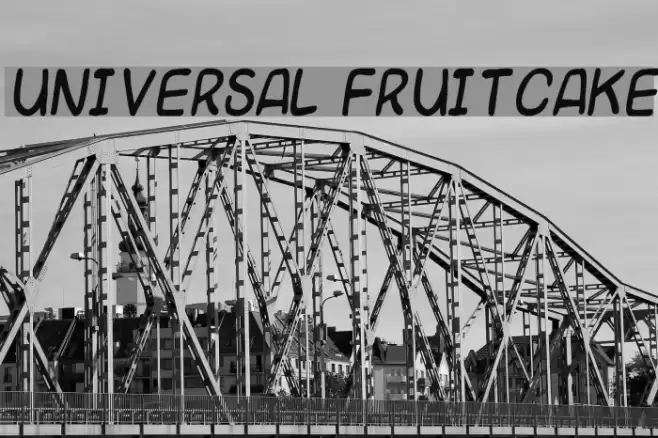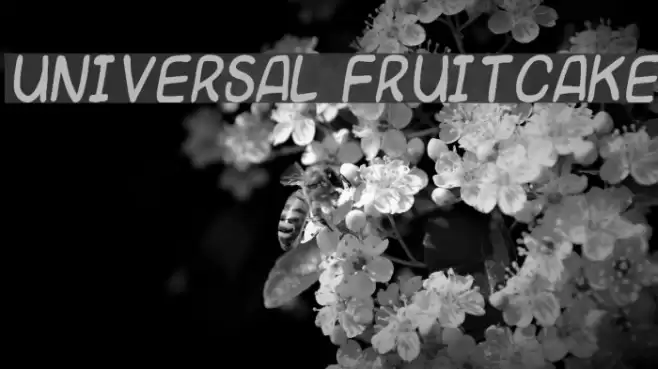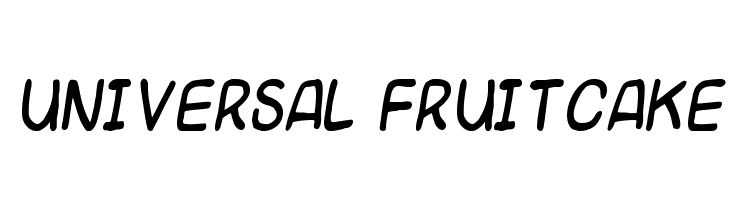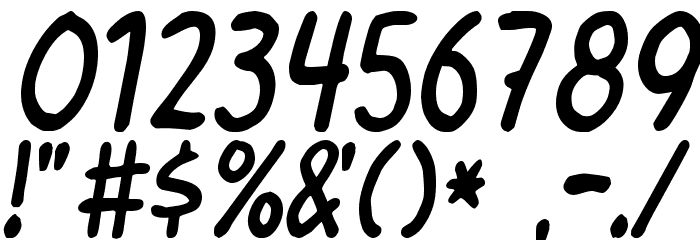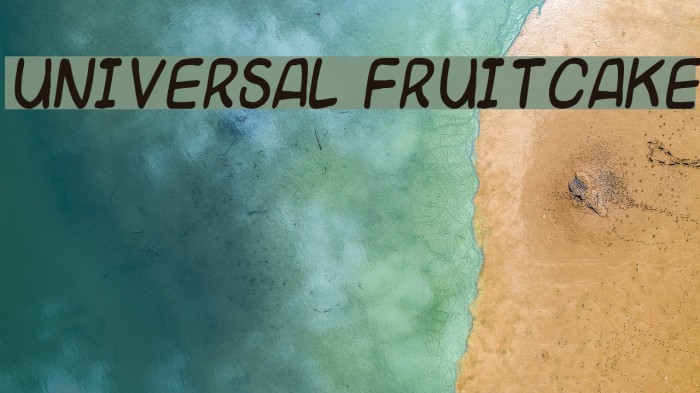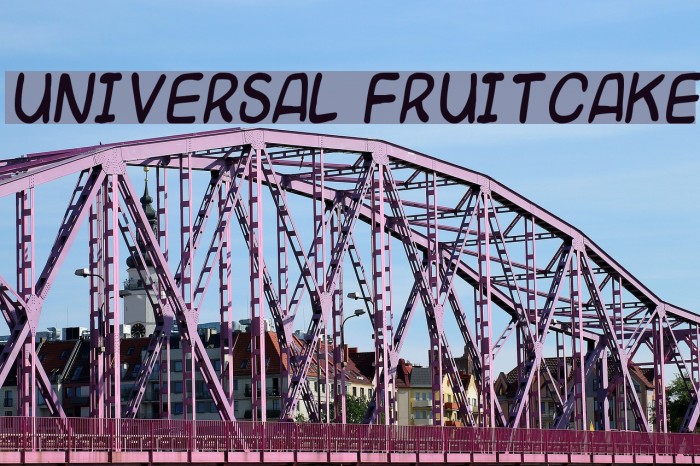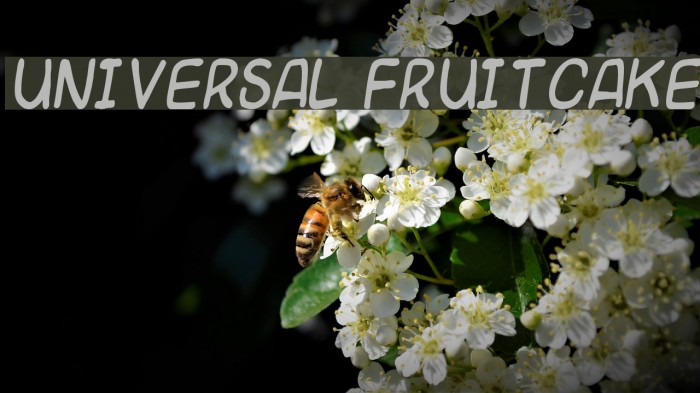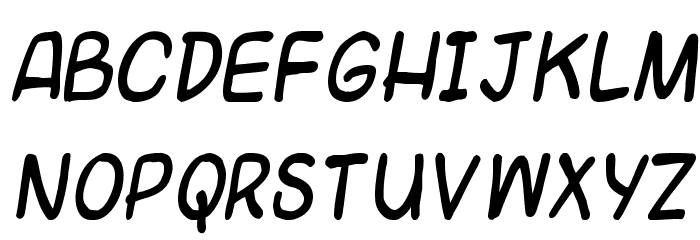
Universal fruitcake Font
Universal fruitcake Description
This playful and energetic font features a handwritten style with a casual and informal appearance. The letters are slightly slanted, giving a dynamic and lively feel. The strokes are bold and consistent, with rounded edges that add to its approachable and friendly character. The numbers and special characters maintain the same playful style, making it versatile for various uses. Its overall design is reminiscent of a personal touch, suitable for projects that require a human element.
A playful, handwritten font with bold, rounded strokes and a casual style from Script fonts.
- Proposed Projects: Ideal for greeting cards, children's books, playful branding, and informal invitations.
- Overall Style: Casual
- Use Case: Logos, Headlines, Informal Text